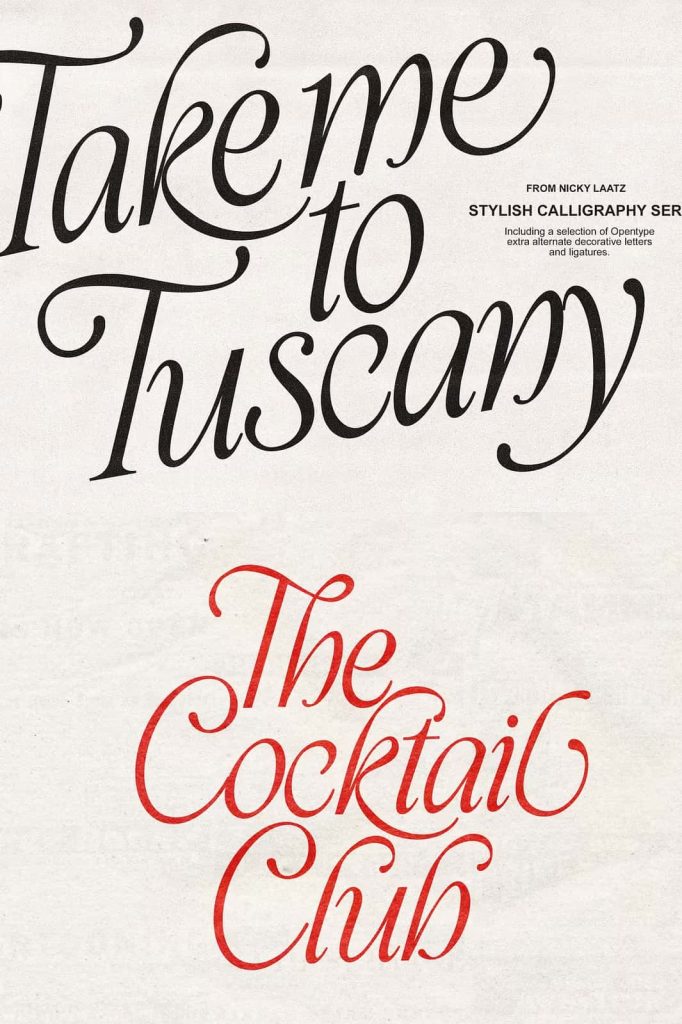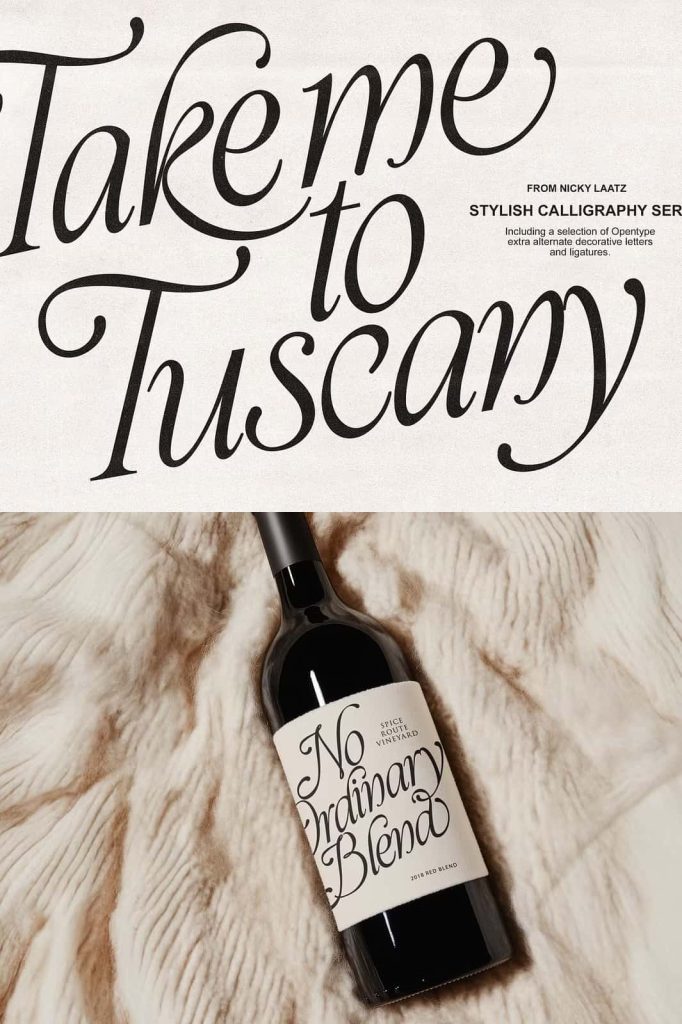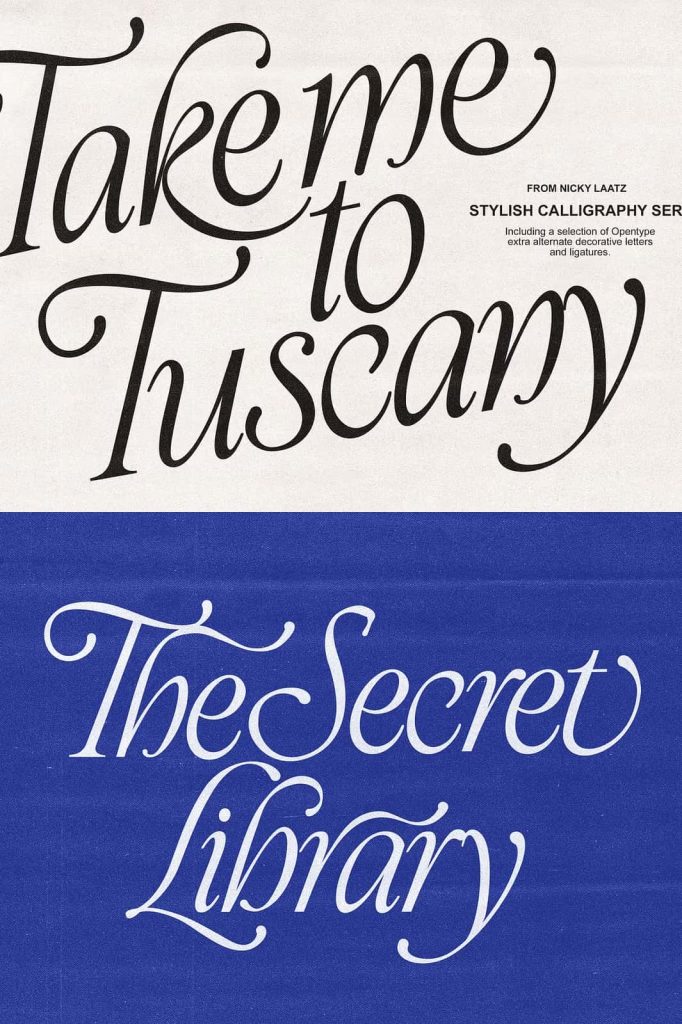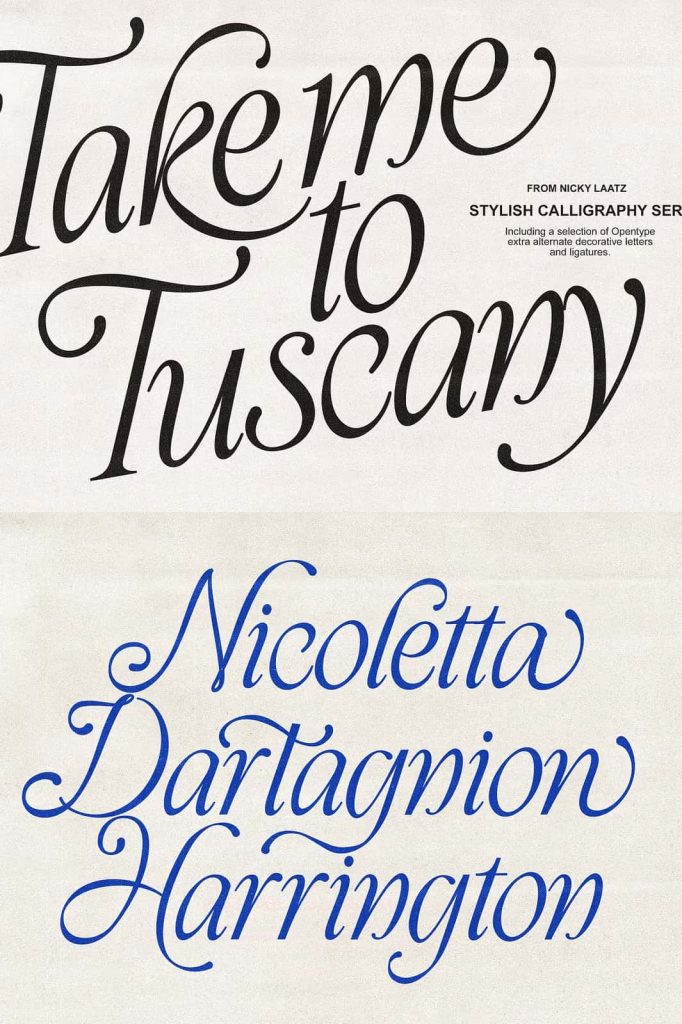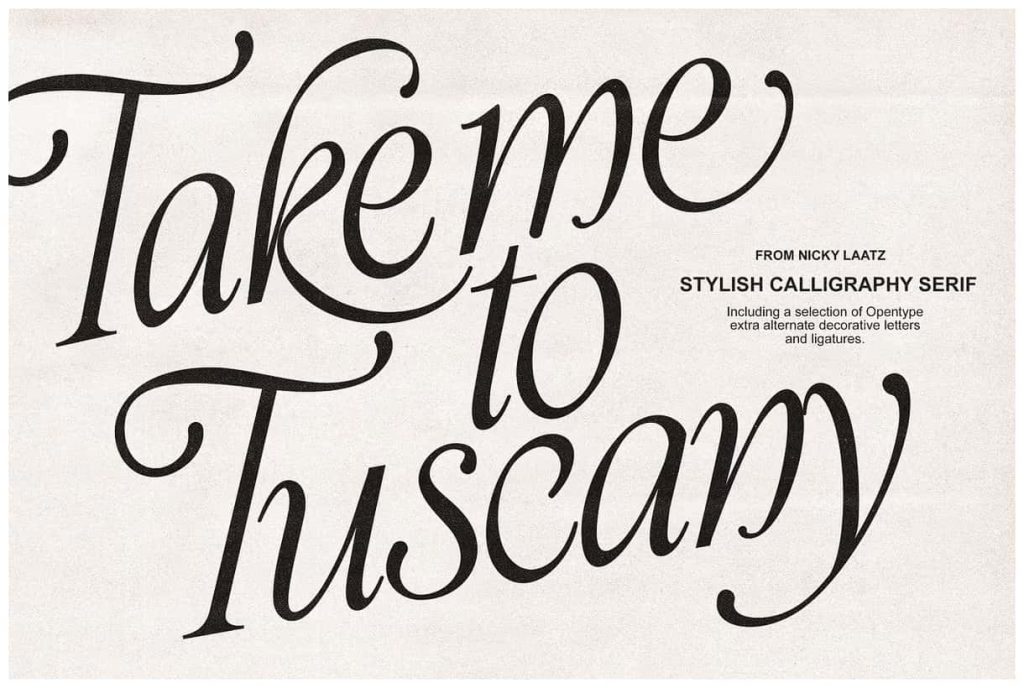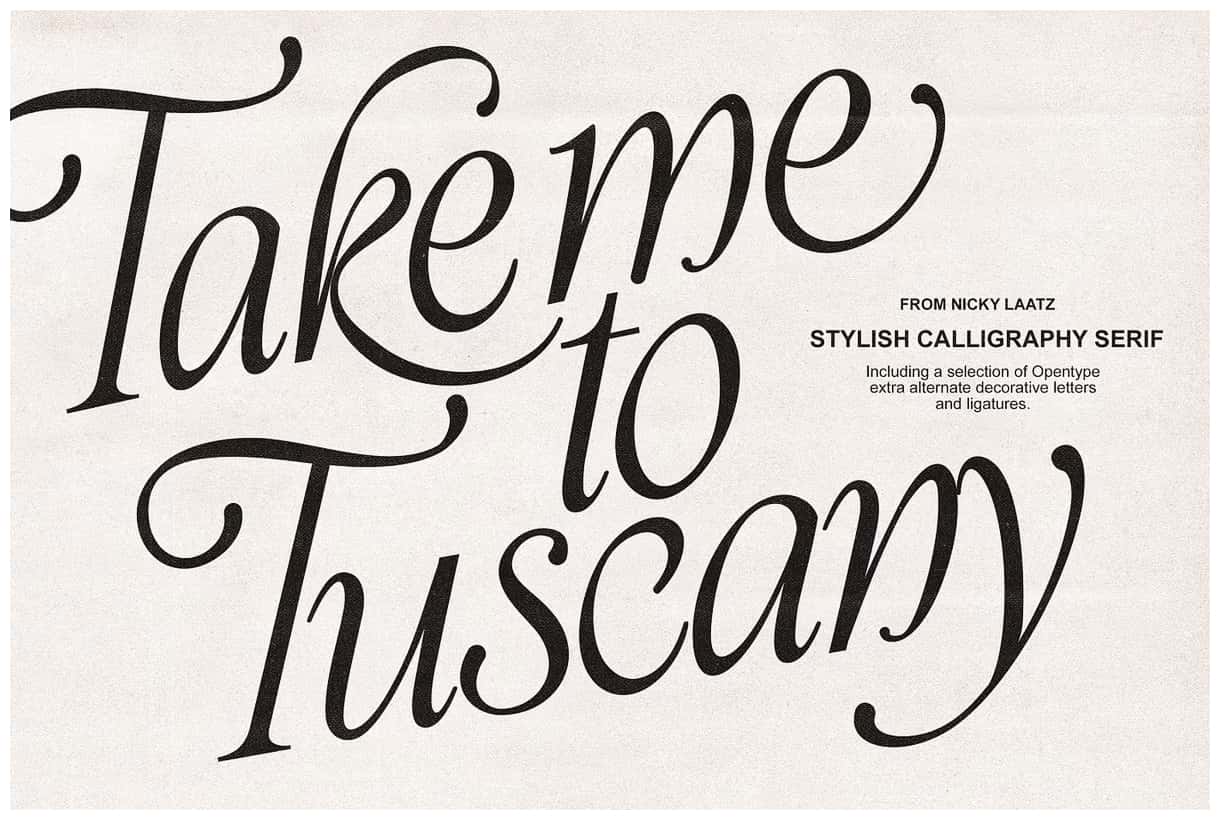
Take Me To Tuscany Typeface: Elegant Calligraphy Serif with Flowing Beauty
Take Me To Tuscany is a refined calligraphy italic serif typeface that captures elegance, movement, and artistic expression in every letter. Designed with graceful curves and delicate flourishes, this typeface brings a sense of luxury and romance to your typography. It invites designers to create compositions that feel fluid, sophisticated, and visually captivating.
This typeface stands out through its expressive structure. The extended strokes, exaggerated loops, and decorative details create a dynamic rhythm that guides the viewer’s eye across the text. It does not simply present words; it transforms them into a visual experience filled with character and charm.
Elegant Curves and Expressive Calligraphy Style
Take Me To Tuscany uses smooth, flowing curves to build a strong sense of elegance. Each letterform feels carefully crafted, with subtle variations that mimic traditional calligraphy techniques. The italicized structure enhances this effect by introducing natural movement and direction into the design.
The typeface maintains a delicate balance between structure and creativity. While it follows the rules of serif typography, it adds artistic flair through sweeping strokes and refined details. This combination allows you to create designs that feel both classic and expressive.
Decorative Flourishes That Elevate Your Design
One of the defining features of Take Me To Tuscany is its decorative flourishes. These elements add personality and sophistication without overwhelming the composition. The extended strokes and exaggerated loops create visual interest and help your text stand out.
These flourishes work especially well in display settings, where they can shine and enhance the overall aesthetic. They allow you to create typography that feels luxurious and intentional, making your designs more engaging and memorable.
Key Design Features
- Italic serif structure with calligraphy influence
- Elegant curves and flowing letterforms
- Extended strokes and exaggerated loops
- Decorative flourishes for added sophistication
Perfect for Luxury and Romantic Design Projects
Take Me To Tuscany excels in projects that require a refined and elegant touch. Its graceful style makes it ideal for designs that aim to communicate beauty, romance, and sophistication. Whether you work on branding or print materials, this typeface enhances your visual storytelling.
Its expressive nature allows you to create strong focal points within your designs. Use it for headlines, titles, or key phrases to capture attention and guide the viewer’s experience.
Best Use Cases for Take Me To Tuscany
- Luxury branding and logo design
- Wedding invitations and event stationery
- Editorial layouts and magazine headlines
- Packaging for premium products
- Social media graphics and promotional content
Create a Sophisticated Brand Identity
Take Me To Tuscany helps you build a brand identity that feels elegant and memorable. Its refined curves and decorative details communicate quality and attention to detail. This makes it an excellent choice for businesses that want to present a high-end image.
By using this typeface, you can craft logos and branding materials that stand out with confidence. Its unique character shapes ensure that your designs remain distinctive and visually appealing.
Pairing Take Me To Tuscany with Other Fonts
To maintain balance in your design, pair Take Me To Tuscany with simpler fonts. Clean sans serif or minimal serif fonts work well as supporting elements. They provide contrast and improve readability while allowing this decorative typeface to remain the focal point.
Use Take Me To Tuscany for headlines and key visual elements, then combine it with a neutral font for body text. This approach ensures your design remains both elegant and functional.
Enhance Your Creative Workflow
Take Me To Tuscany simplifies the process of creating sophisticated typography. Its built-in elegance reduces the need for additional decorative elements, allowing you to achieve stunning results with minimal effort.
The typeface encourages experimentation with layout and composition. You can explore different sizes, spacing, and alignments to discover unique visual outcomes. Its versatility makes it suitable for both traditional and modern design styles.
Key Advantages of Take Me To Tuscany
- Elegant calligraphy-inspired serif design
- Flowing curves and dynamic letterforms
- Decorative flourishes for visual impact
- Ideal for luxury and romantic projects
- Enhances typography with expressive style
Conclusion
Take Me To Tuscany is more than just a typeface; it is a creative tool that brings elegance and artistry into your designs. Its combination of calligraphy influence, refined curves, and decorative flourishes makes it an excellent choice for designers who want to create visually captivating work. By incorporating Take Me To Tuscany into your projects, you can produce designs that feel luxurious, expressive, and truly unforgettable.